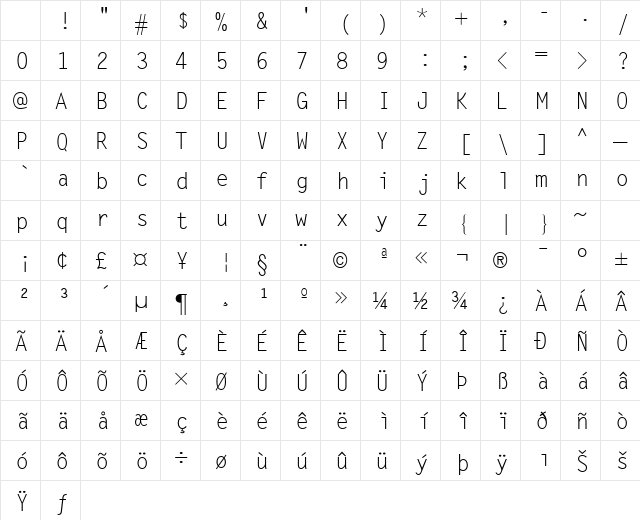
Complete Letter Normal glyph index. Displaying only characters natively supported by Letter Normal font.
Letter is a composed and adaptable typeface that performs quietly and consistently across a wide range of design contexts.